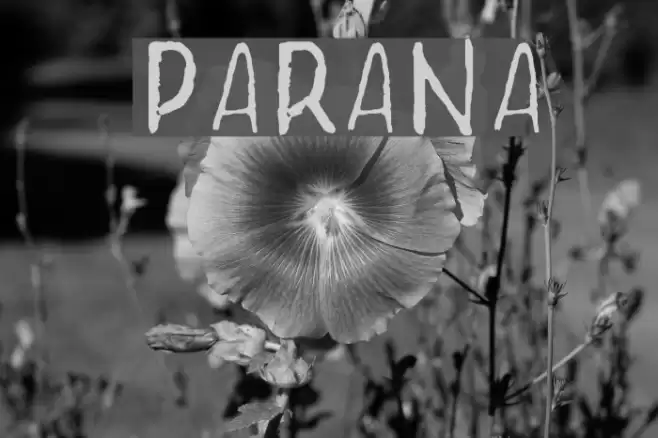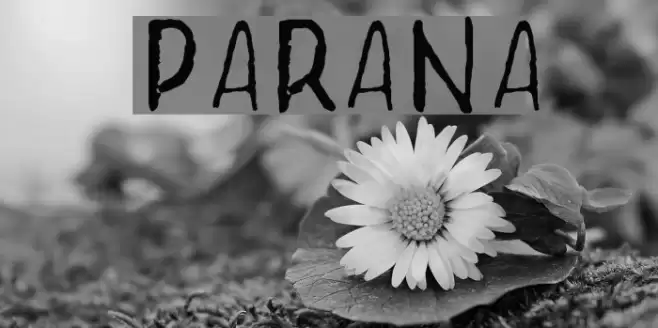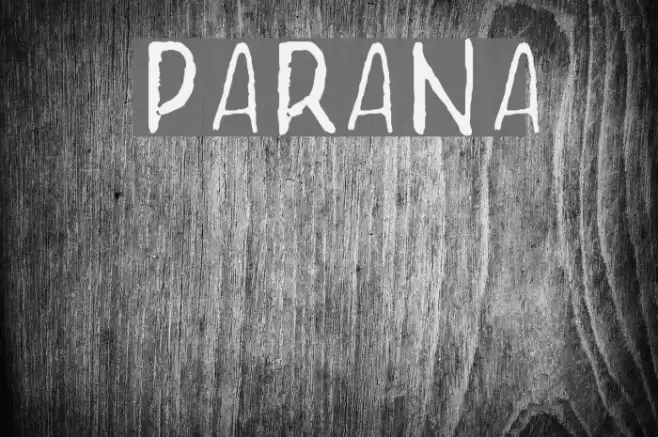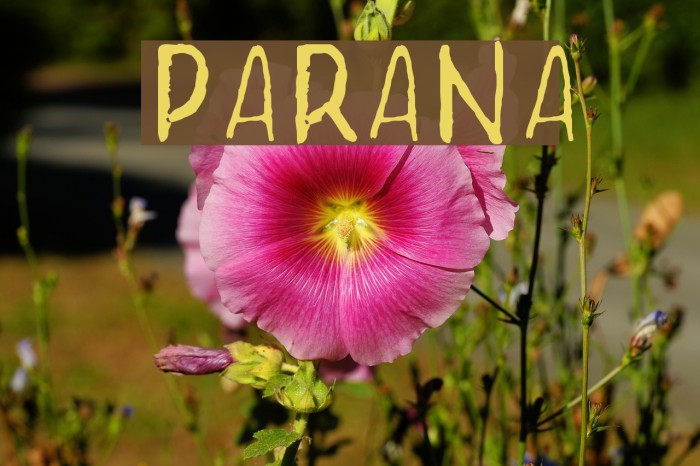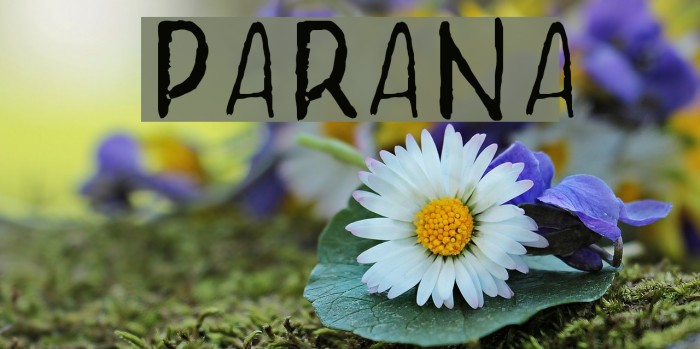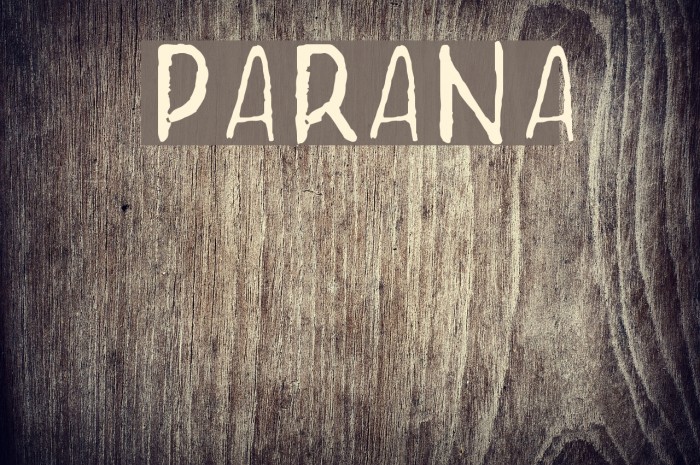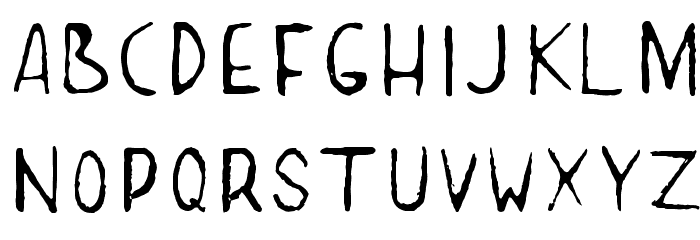
Parana Font
Parana Description
This font features a hand-drawn, organic style with irregular strokes and a playful, artistic flair. The characters have a rough, textured appearance, giving them a unique, handcrafted feel. The uppercase and lowercase letters maintain a consistent style, with slightly varying widths and heights that add to the font's charm. The numbers and special characters follow the same aesthetic, ensuring a cohesive look across all elements. This font is ideal for projects that require a personal touch, such as invitations, greeting cards, or creative branding. Its distinctive style makes it stand out, while still being legible and versatile.
A hand-drawn, textured font with an artistic and playful style from Script fonts.
- Proposed Projects: Ideal for invitations, greeting cards, creative branding, and artistic projects.